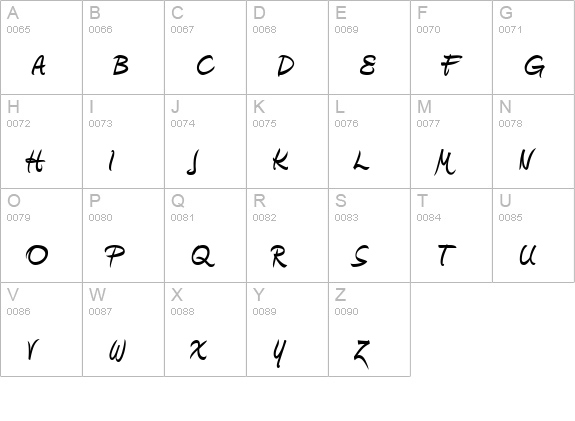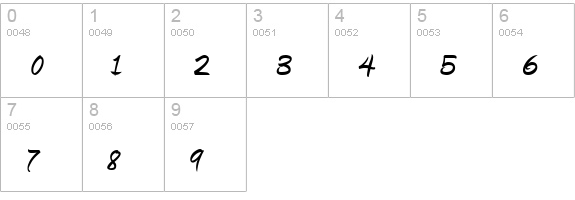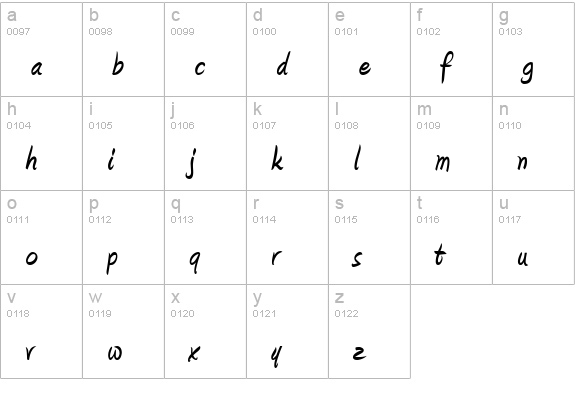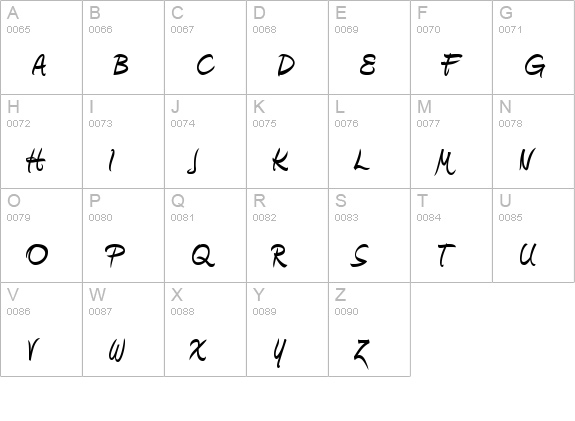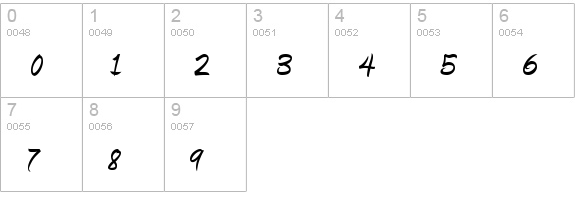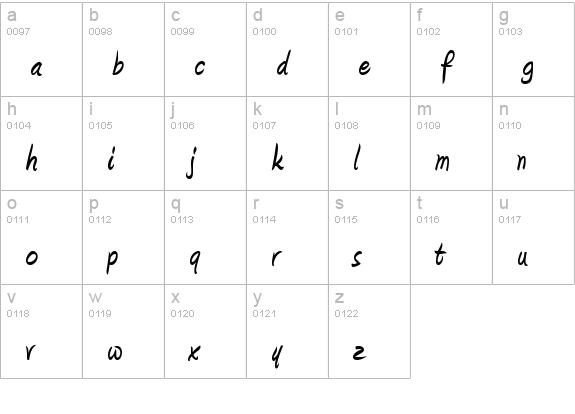
Amienne Bold is a strong, high-contrast variant in the Amienne typeface family \xE2\x80\x94 well suited to headlines, attention-grabbing titles, and strong calls-to-action.
Amienne Bold is a stunning and elegant font that exudes sophistication and style. Its bold and distinctive letterforms make it perfect for creating eye-catching headlines, titles, and logos. The smooth curves and clean lines of this font give it a modern and sleek look that is sure to impress. Whether you are designing a poster, website, or branding materials, Amienne Bold will add a touch of class to your project. And the best part? This beautiful font is available for free download at FontsMarket.com. So why wait? Enhance your designs with the timeless elegance of Amienne Bold today.